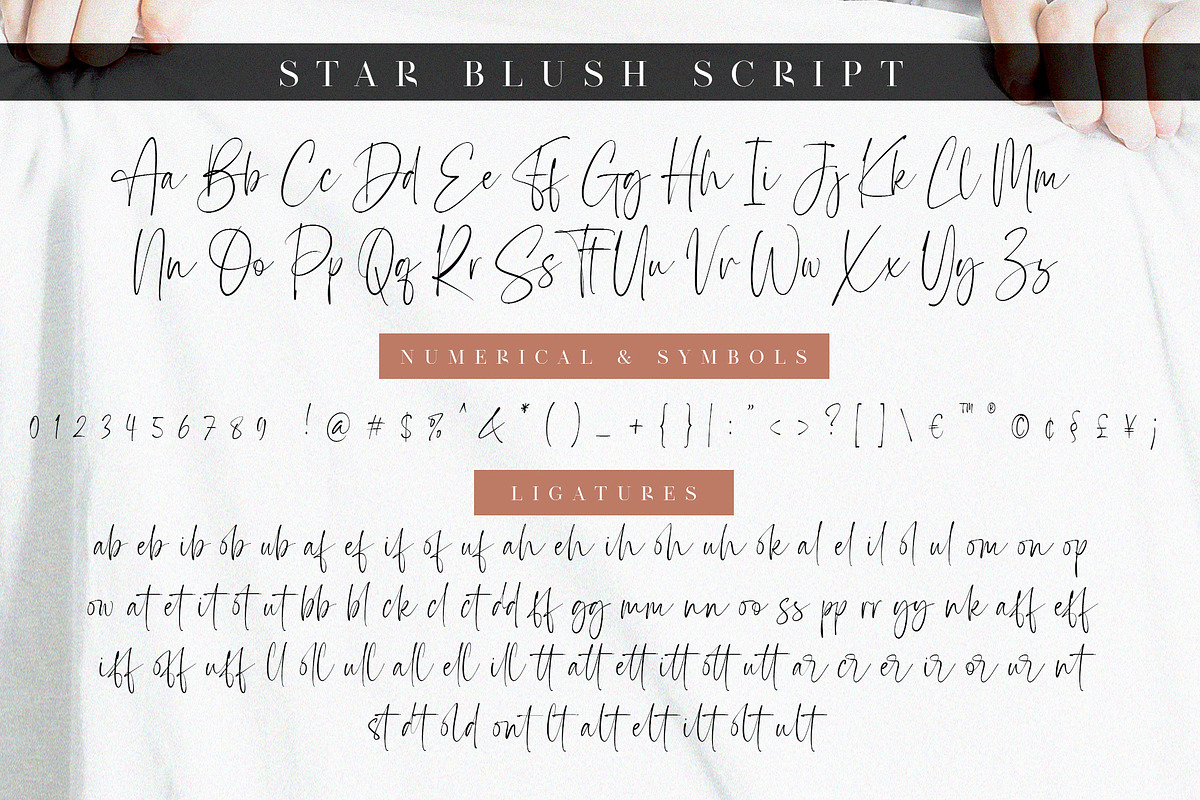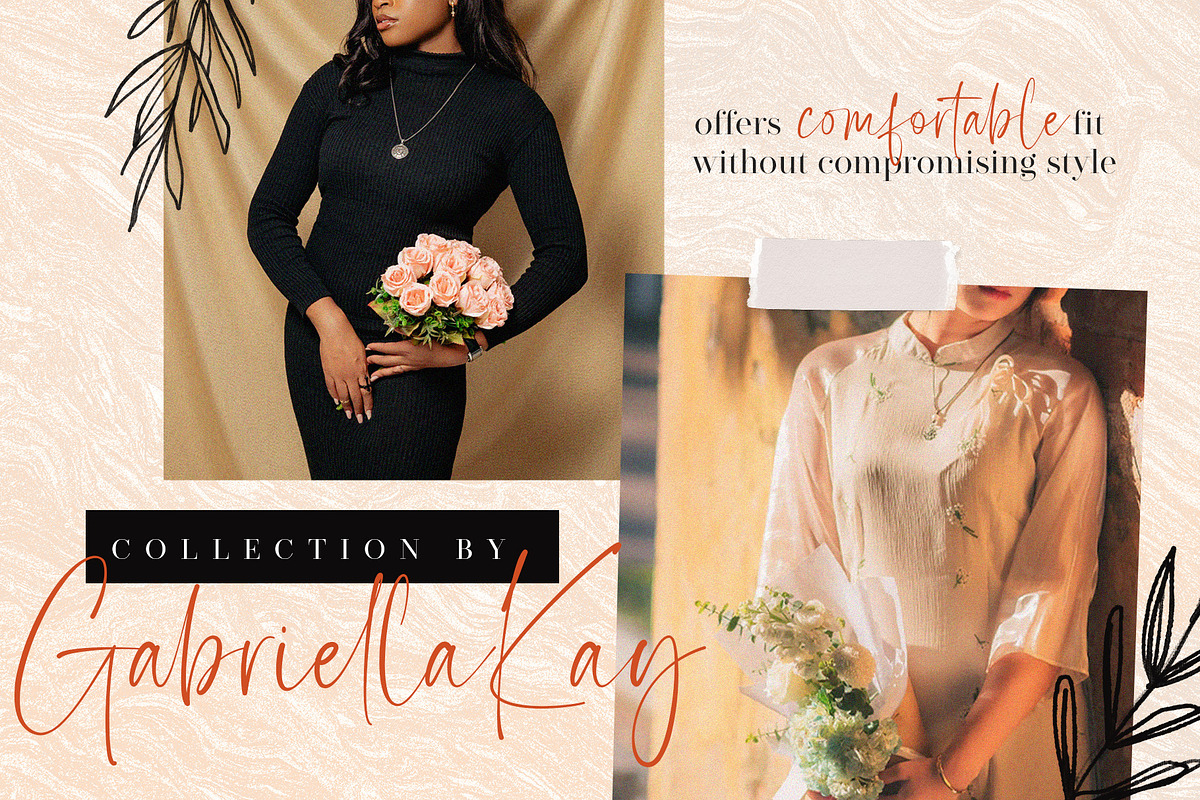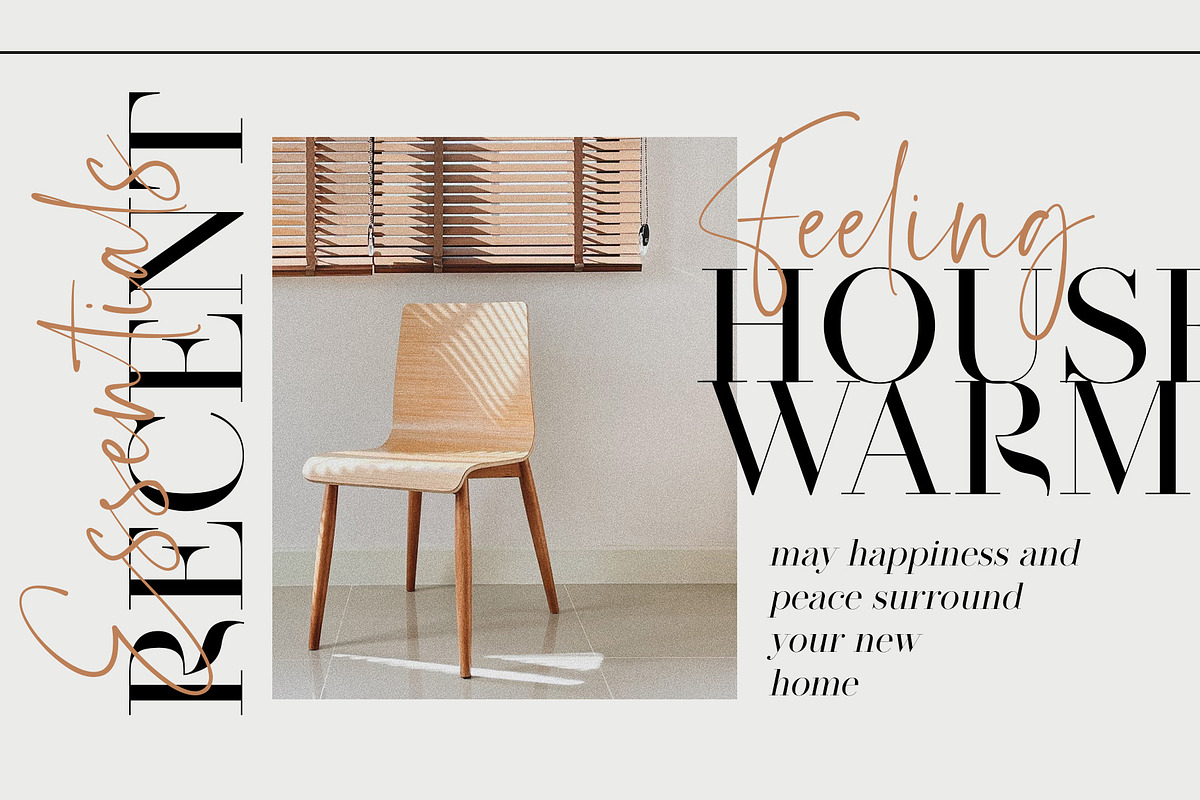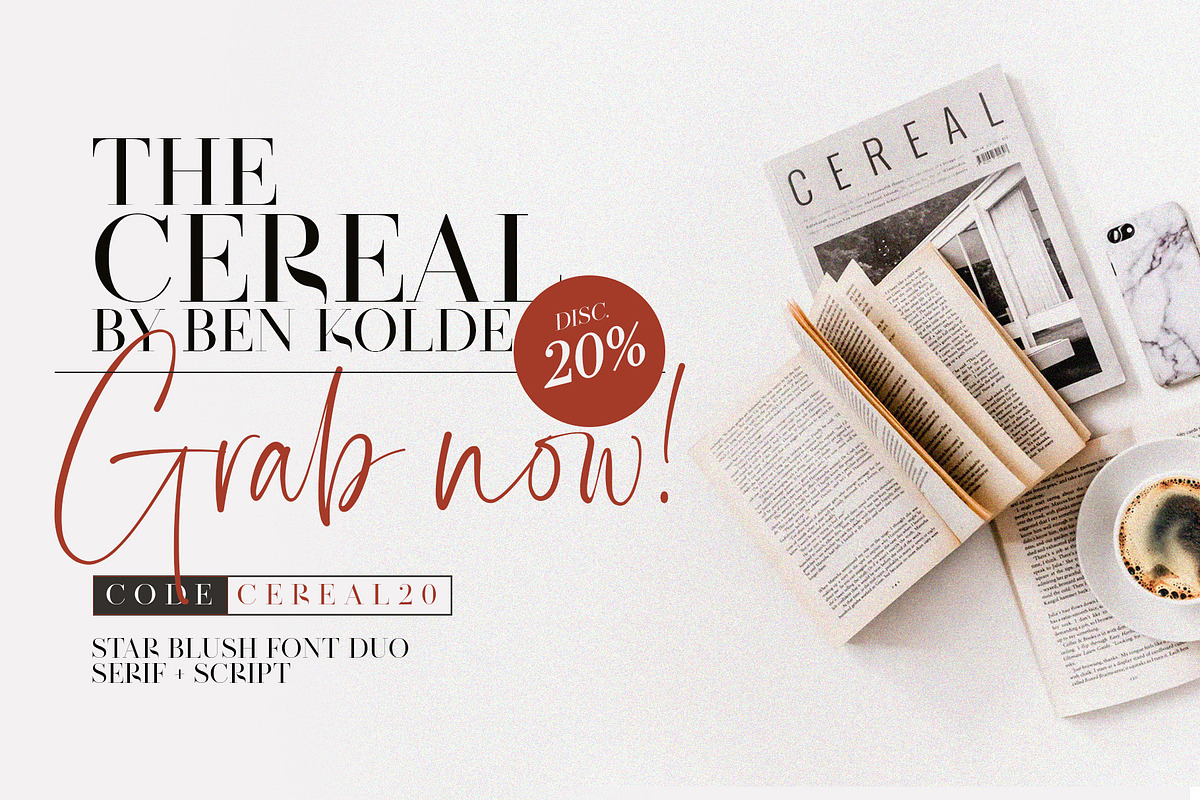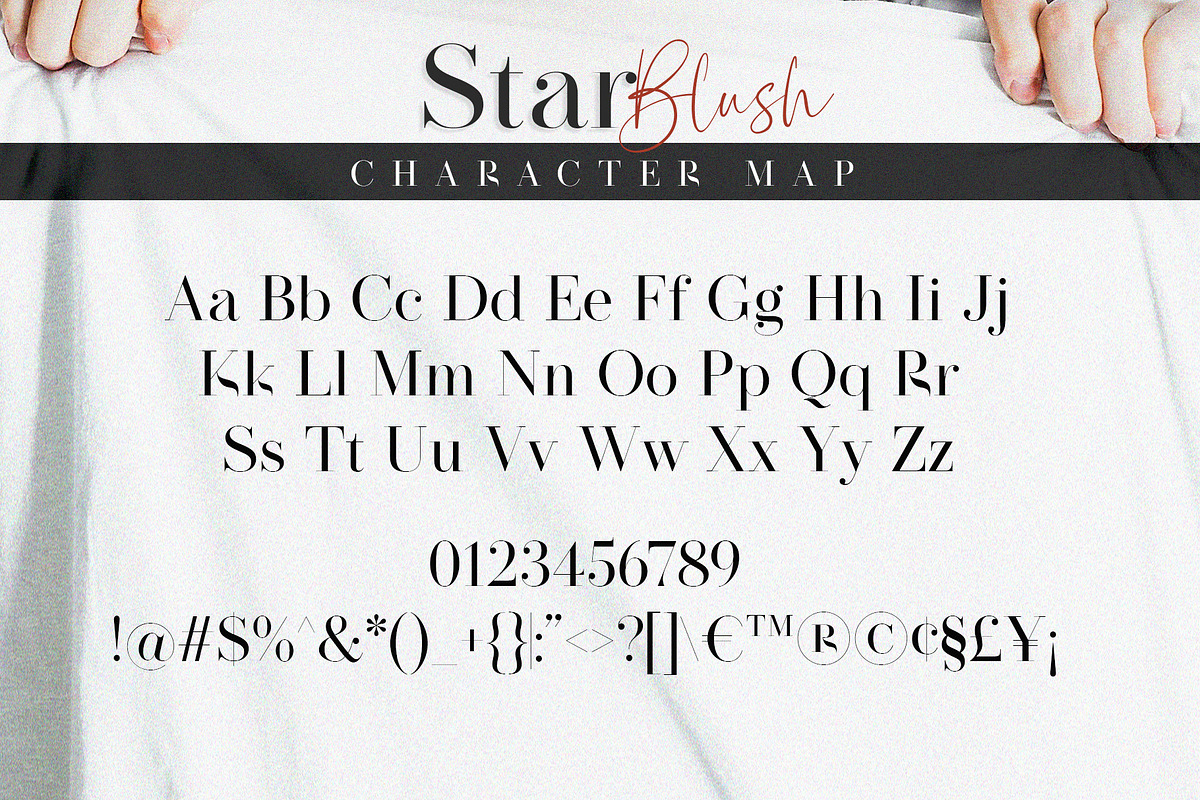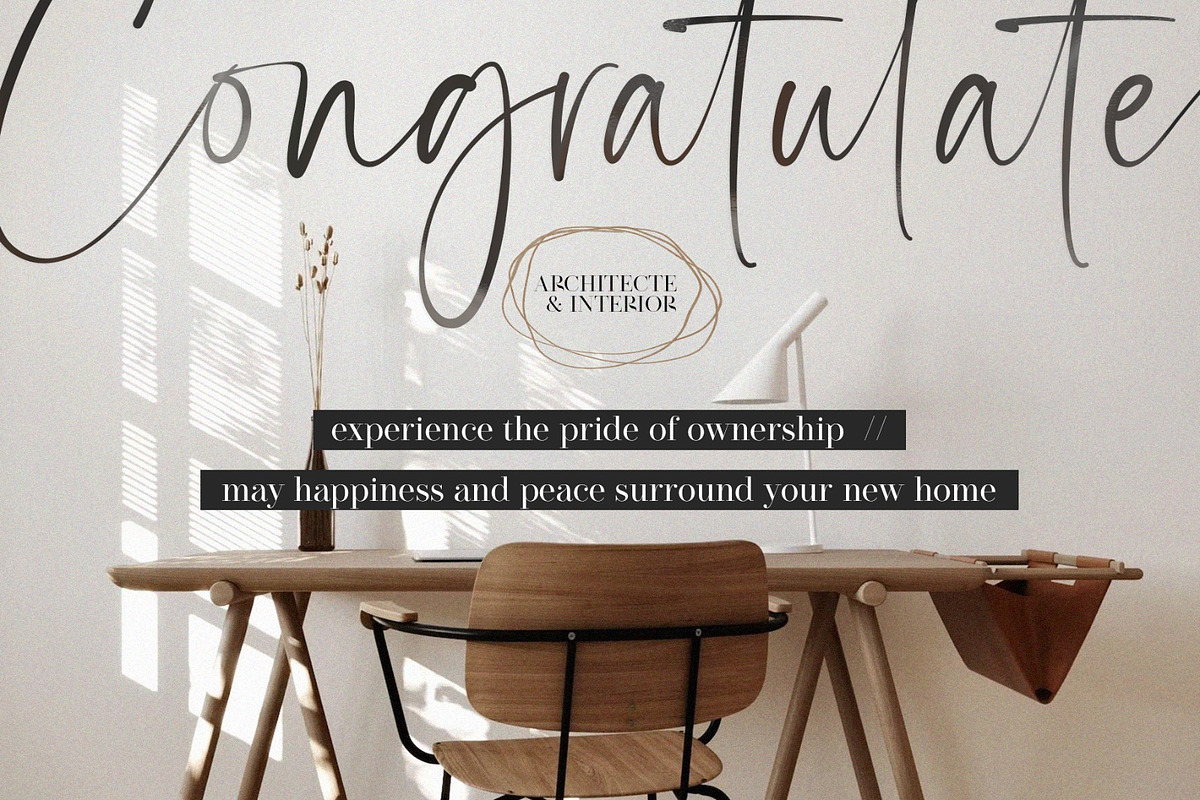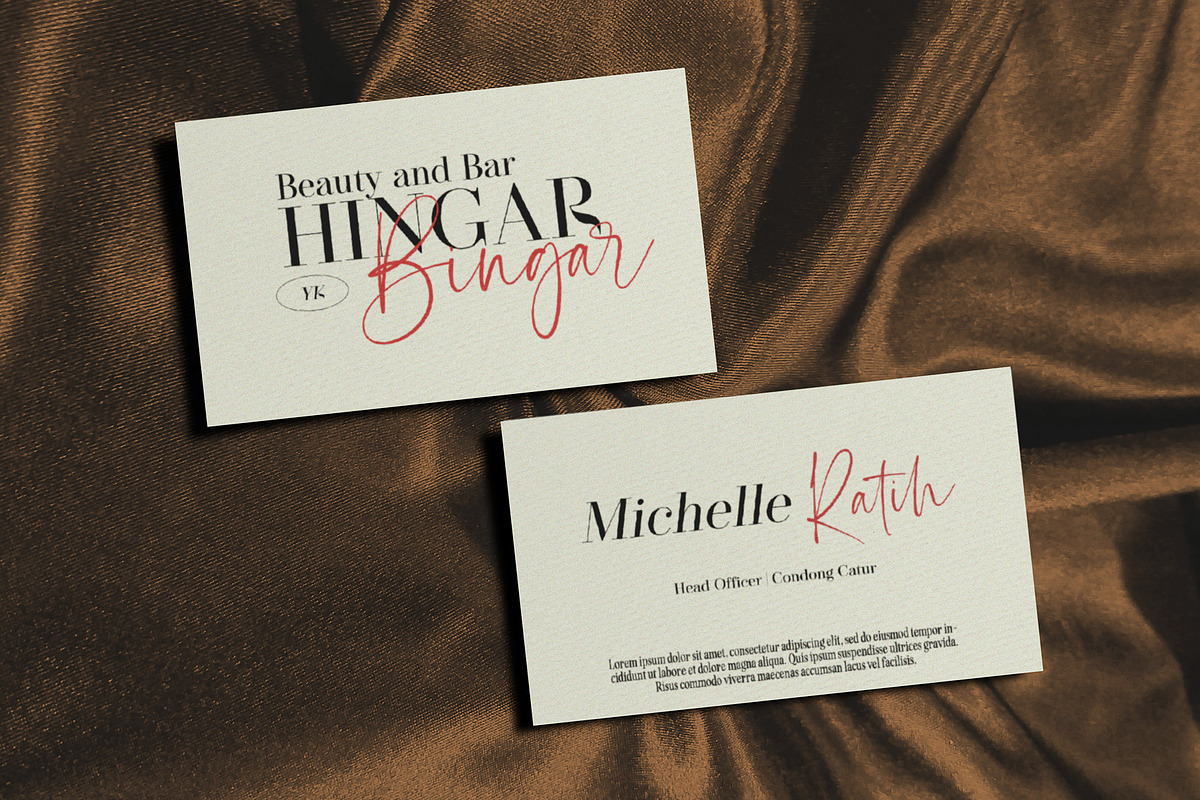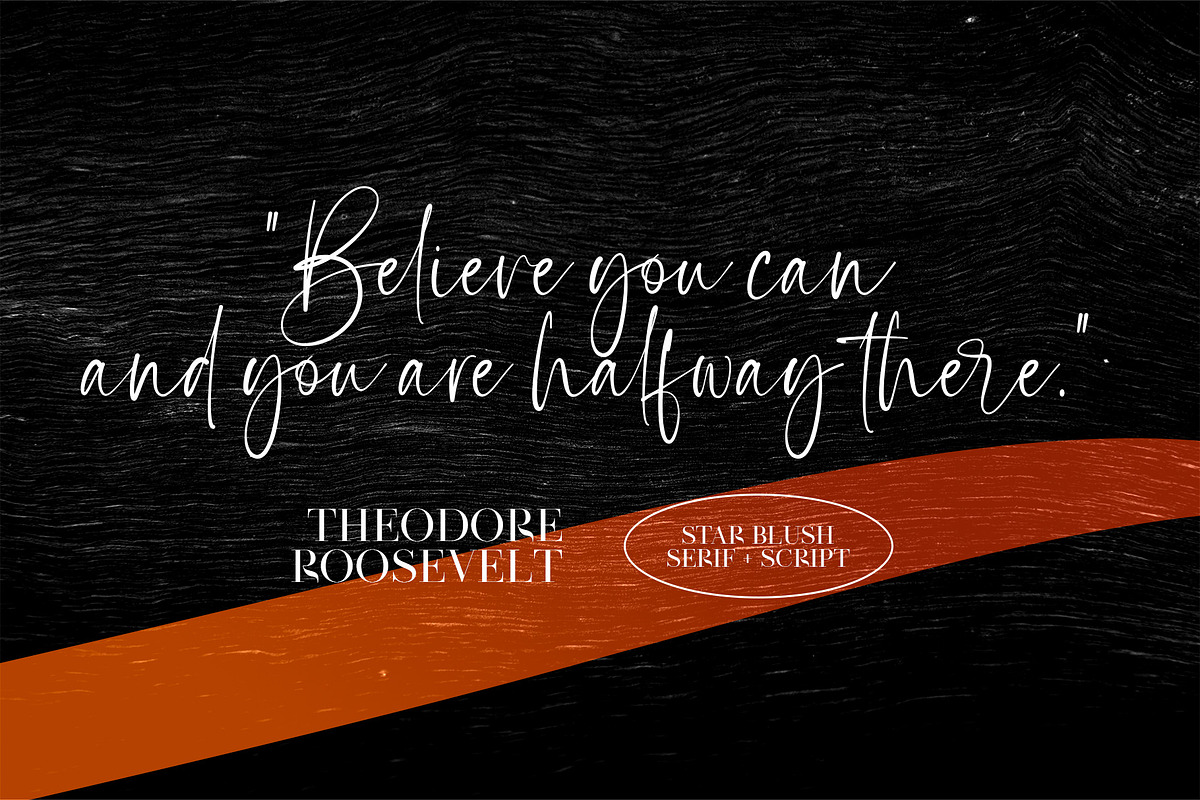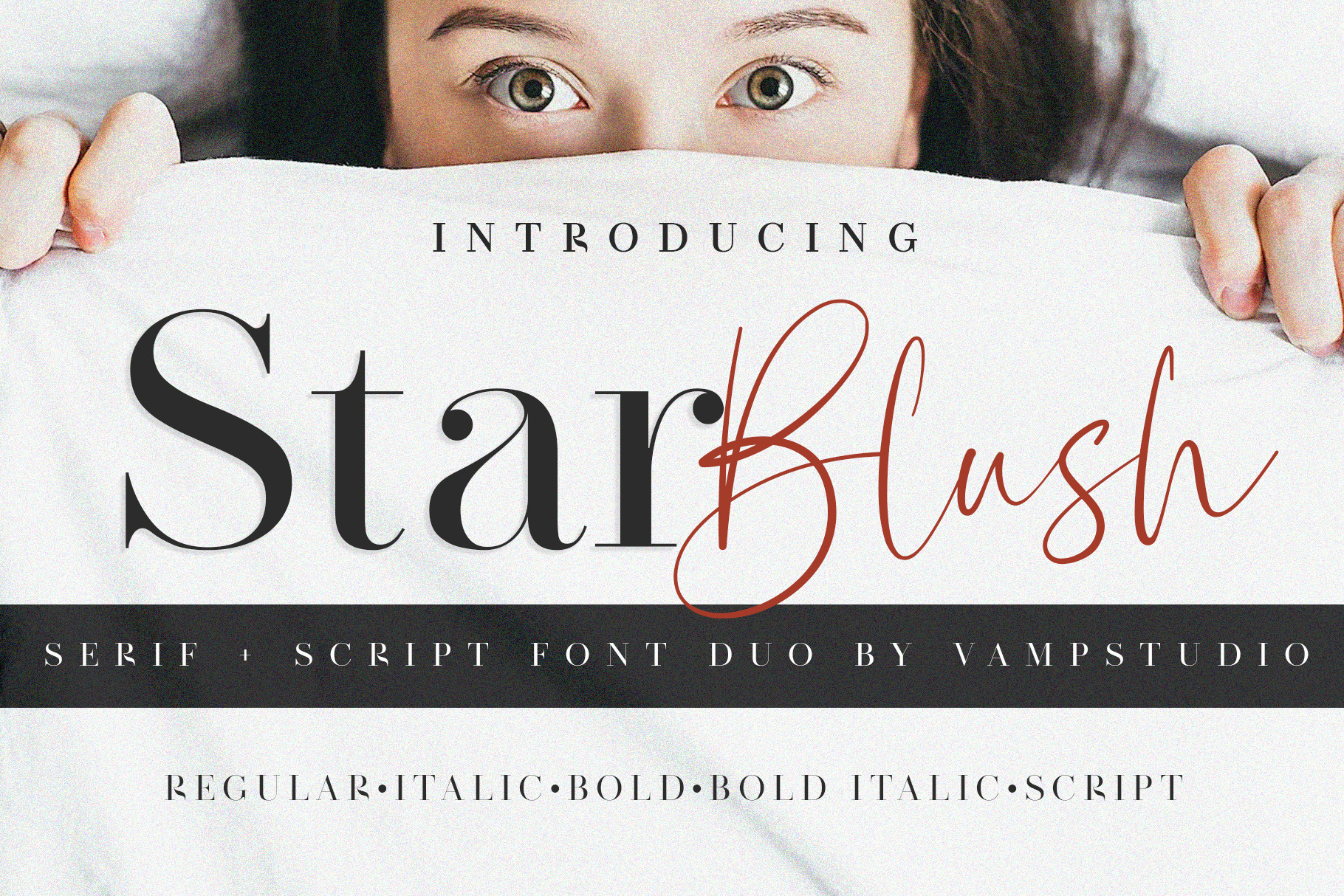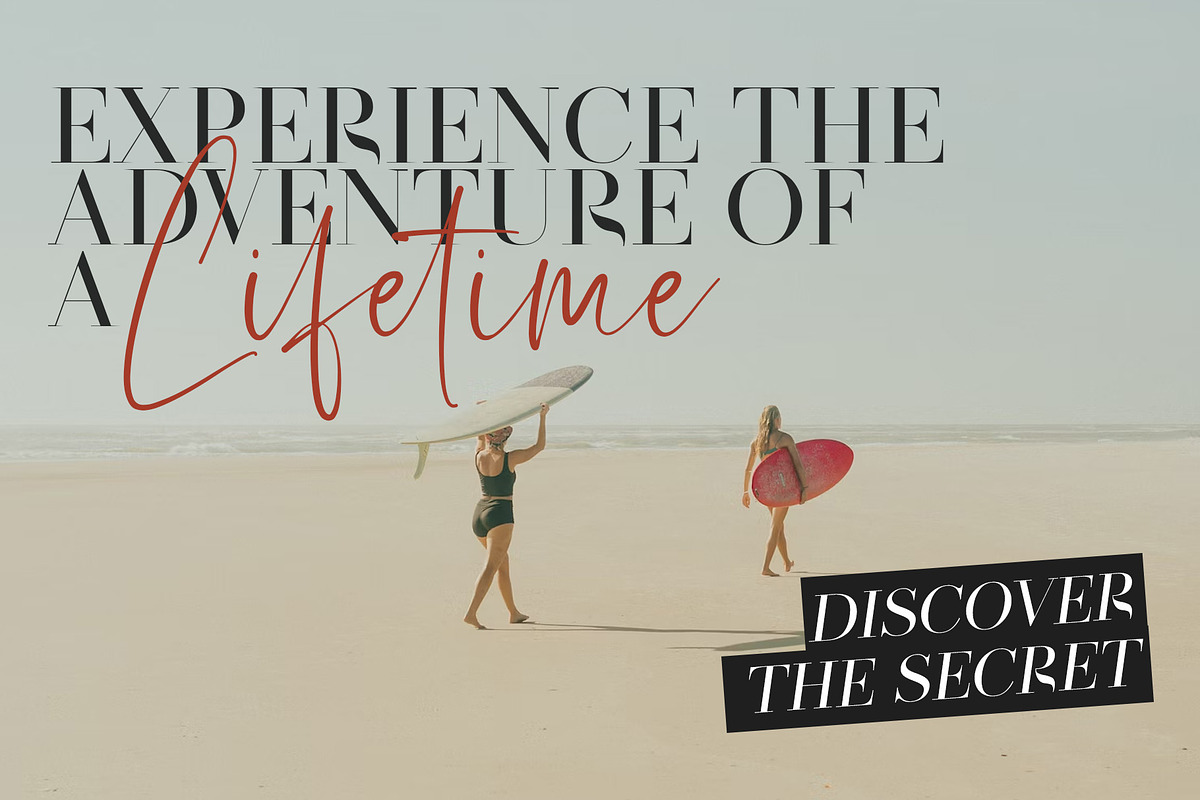
Star Blush Elegant Font Duo
Explore a stunning typography pairing with Star Blush; a carefully crafted and perfectly balanced set of elegant serif and realistic script typefaces.
Star Blush Serif • An all-caps Serif font containing uppercase, all punctuation & numerals, including serif family Regular, Bold, Italic , Bold-Italic.
Star Blush Script • A thin and realistic textured handwriting font, hand-drawn with a real fine-tip pen. Contains, lowercase, uppercase, all punctuation & numerals. Also includes 80 built-in ligatures.